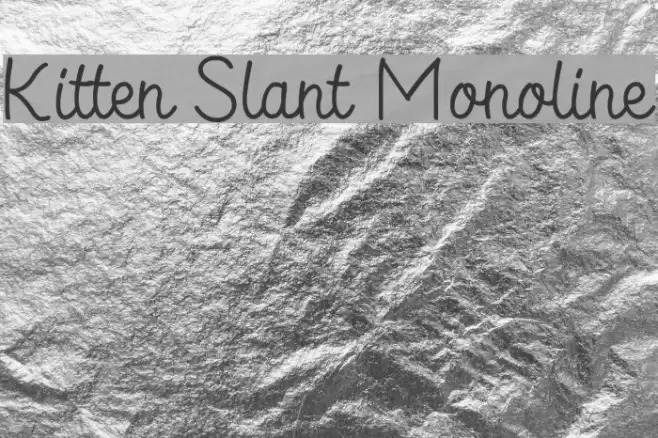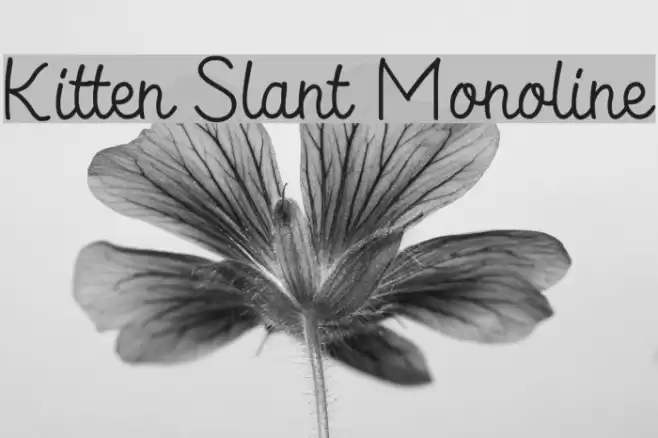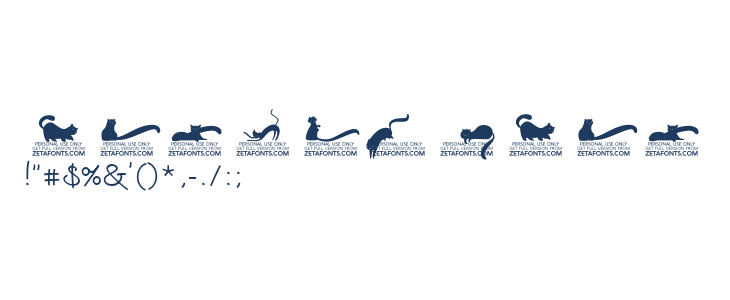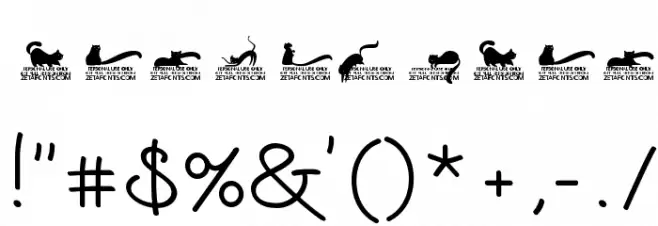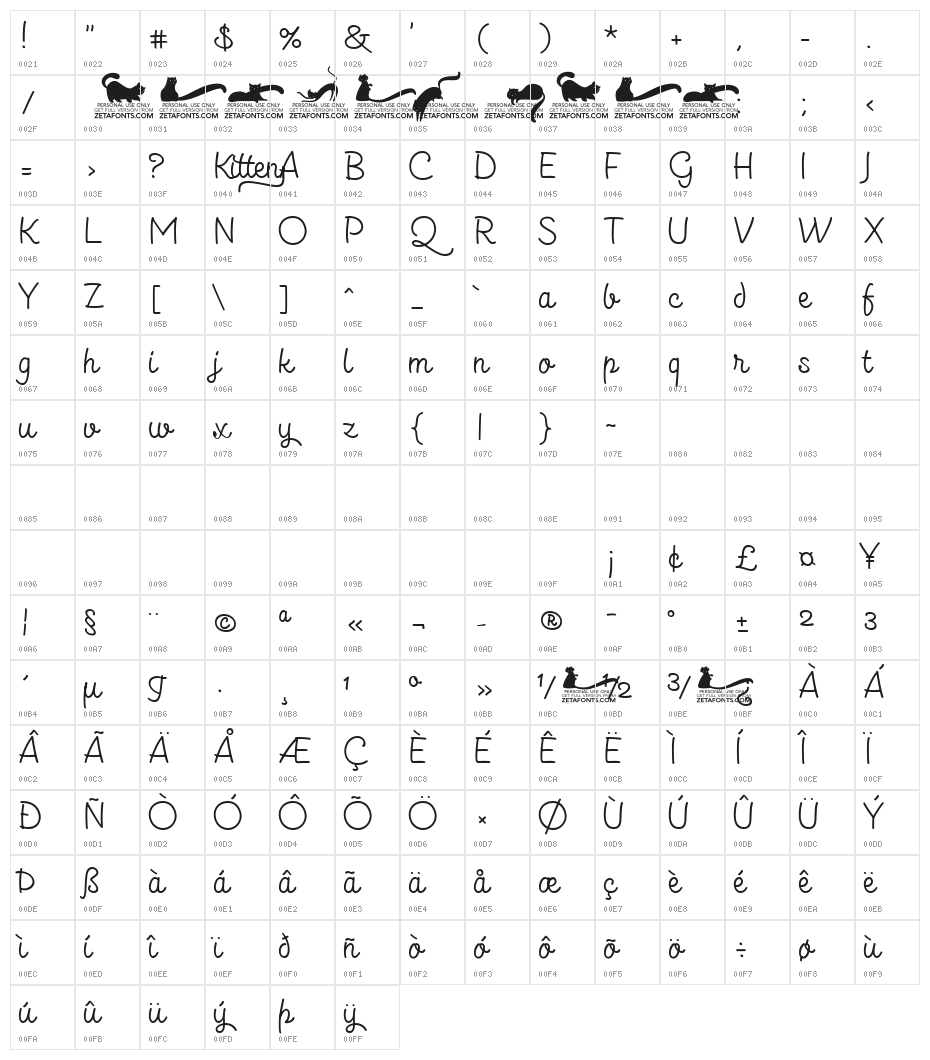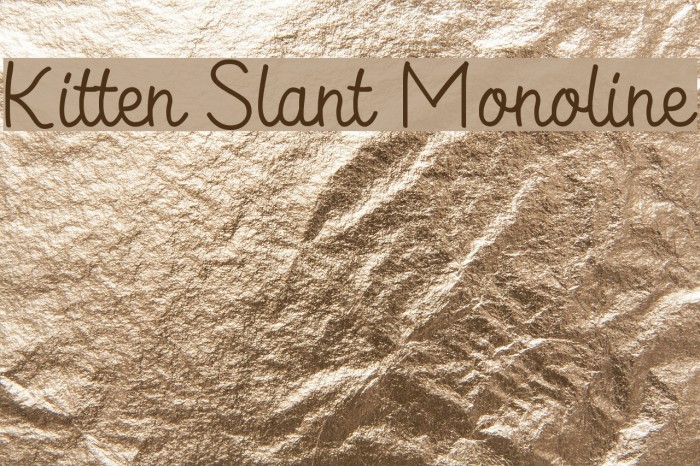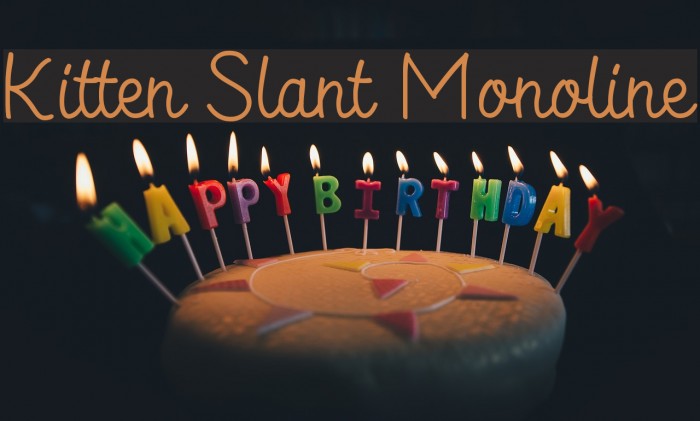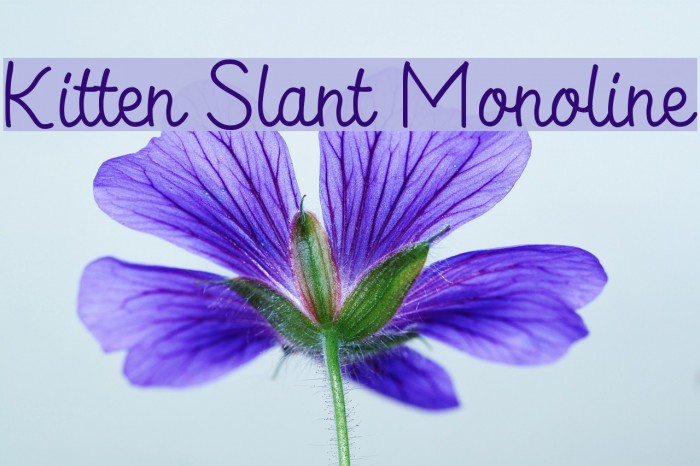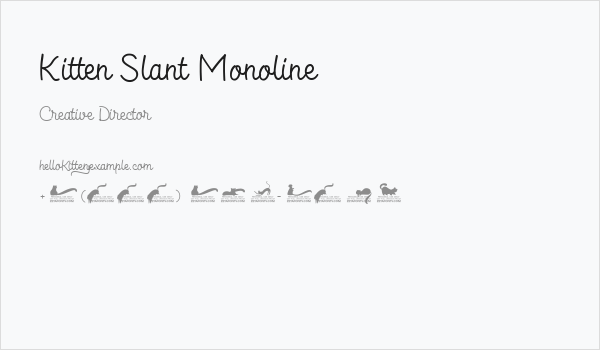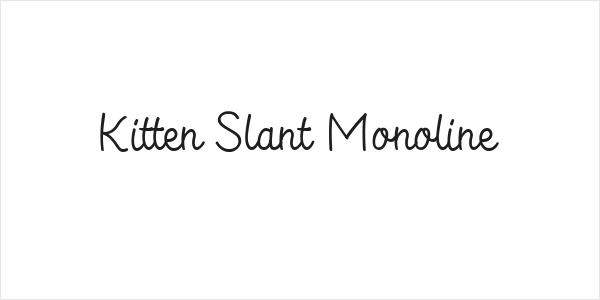
Kitten Slant Monoline Font
Kitten Slant Monoline Description
This playful and whimsical font features a monoline design with a slight slant, giving it a casual and friendly appearance. The characters are crafted with smooth, continuous strokes that maintain a consistent thickness throughout, contributing to its monoline style. The uppercase letters are tall and elegant, while the lowercase letters exhibit a charming, handwritten quality. The font includes a full set of numerals and a variety of special characters, making it versatile for different uses. Its unique style is further enhanced by the inclusion of cat silhouettes, adding a decorative touch that can be used creatively in design projects.
A playful, slanted monoline font with a handwritten feel and decorative cat silhouettes from Uncategorized fonts.
- Proposed Projects: Ideal for children's books, playful branding, greeting cards, and creative posters.
- Use Case: Logos, Headlines, Creative projects